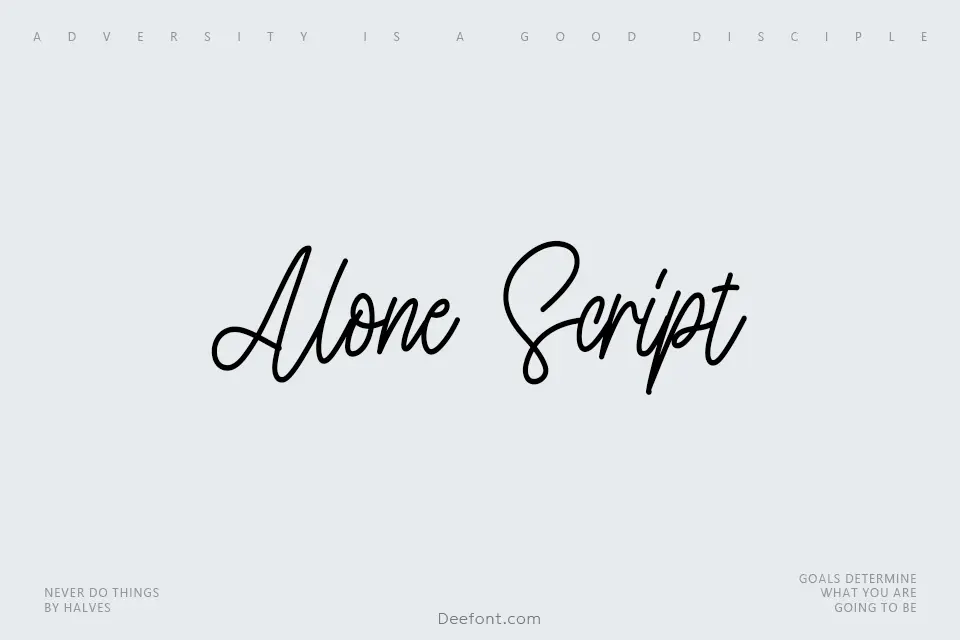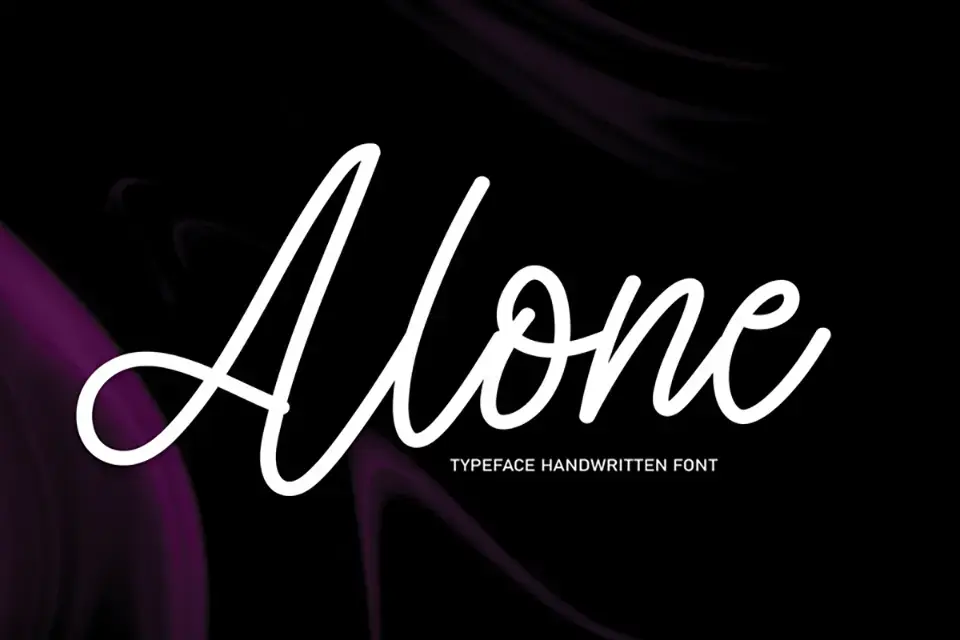
Alone Script Font
Alone Script Font by Scratchones is an elegant handwritten typeface with flowing cursive strokes and natural letter variations. Its casual yet sophisticated style creates a personal, intimate atmosphere perfect for wedding invitations, branding, social media graphics, product packaging, photography watermarks, and creative projects requiring authentic handwriting aesthetics. The font delivers excellent readability at display sizes while maintaining organic charm.